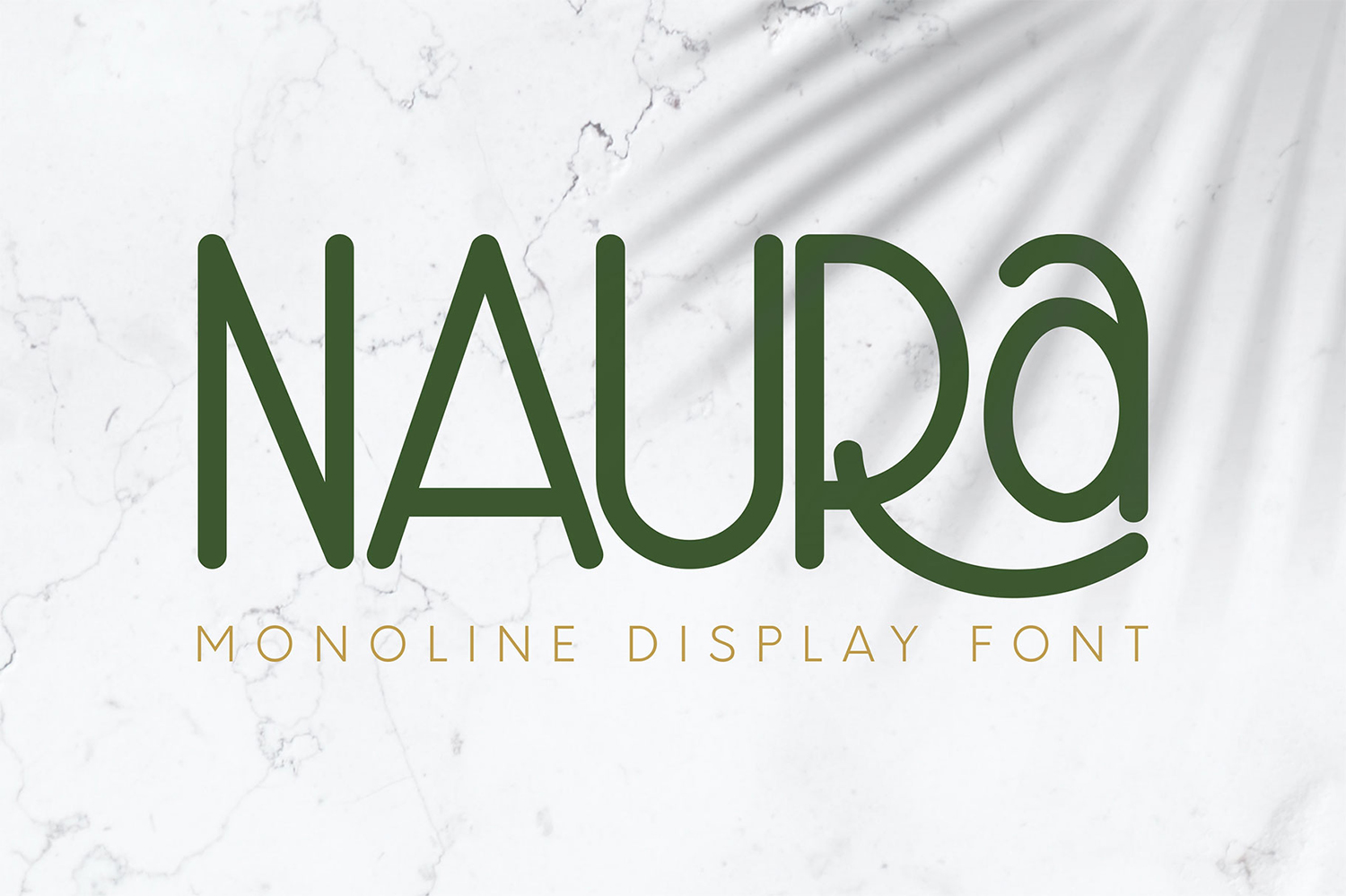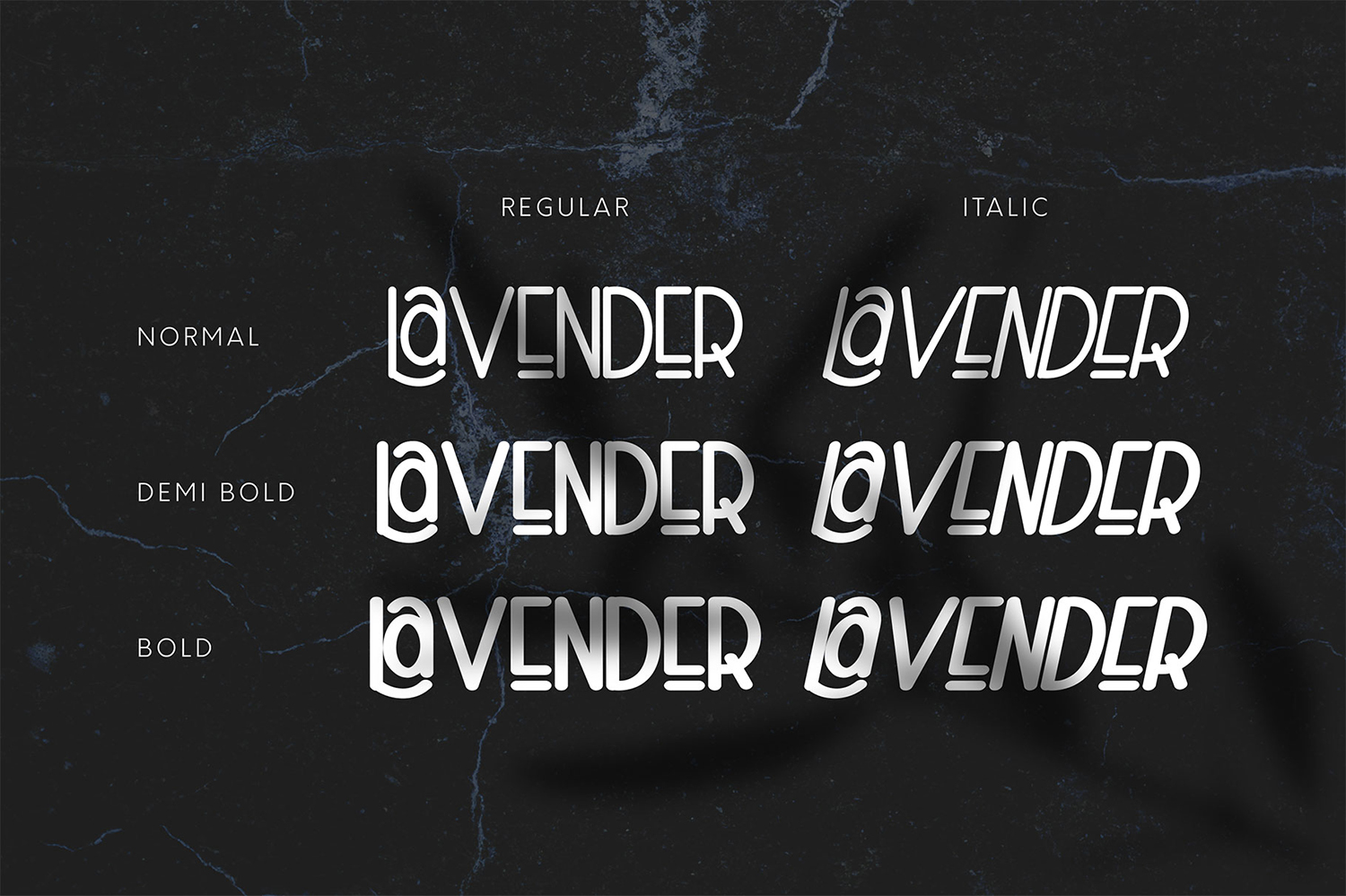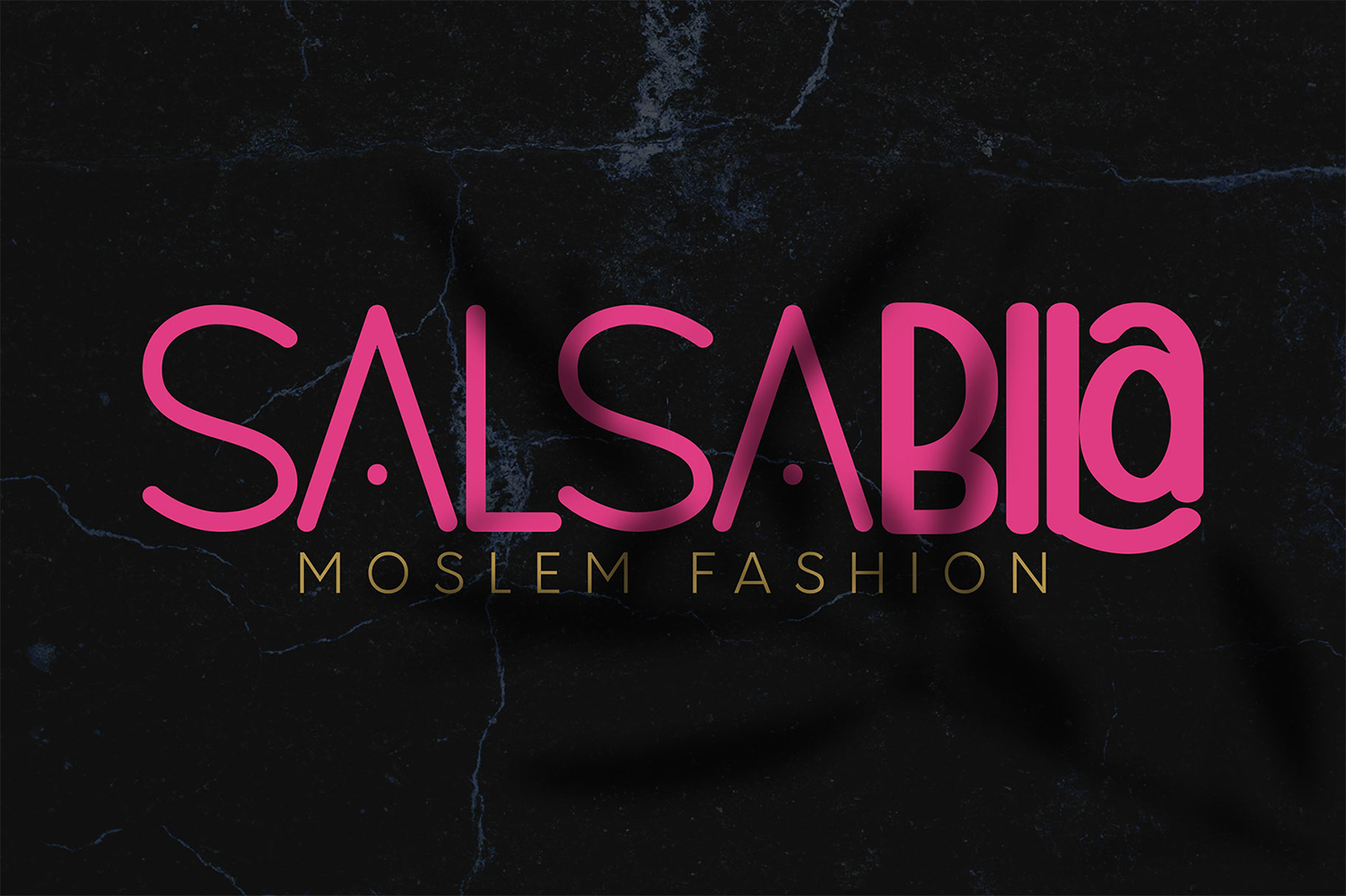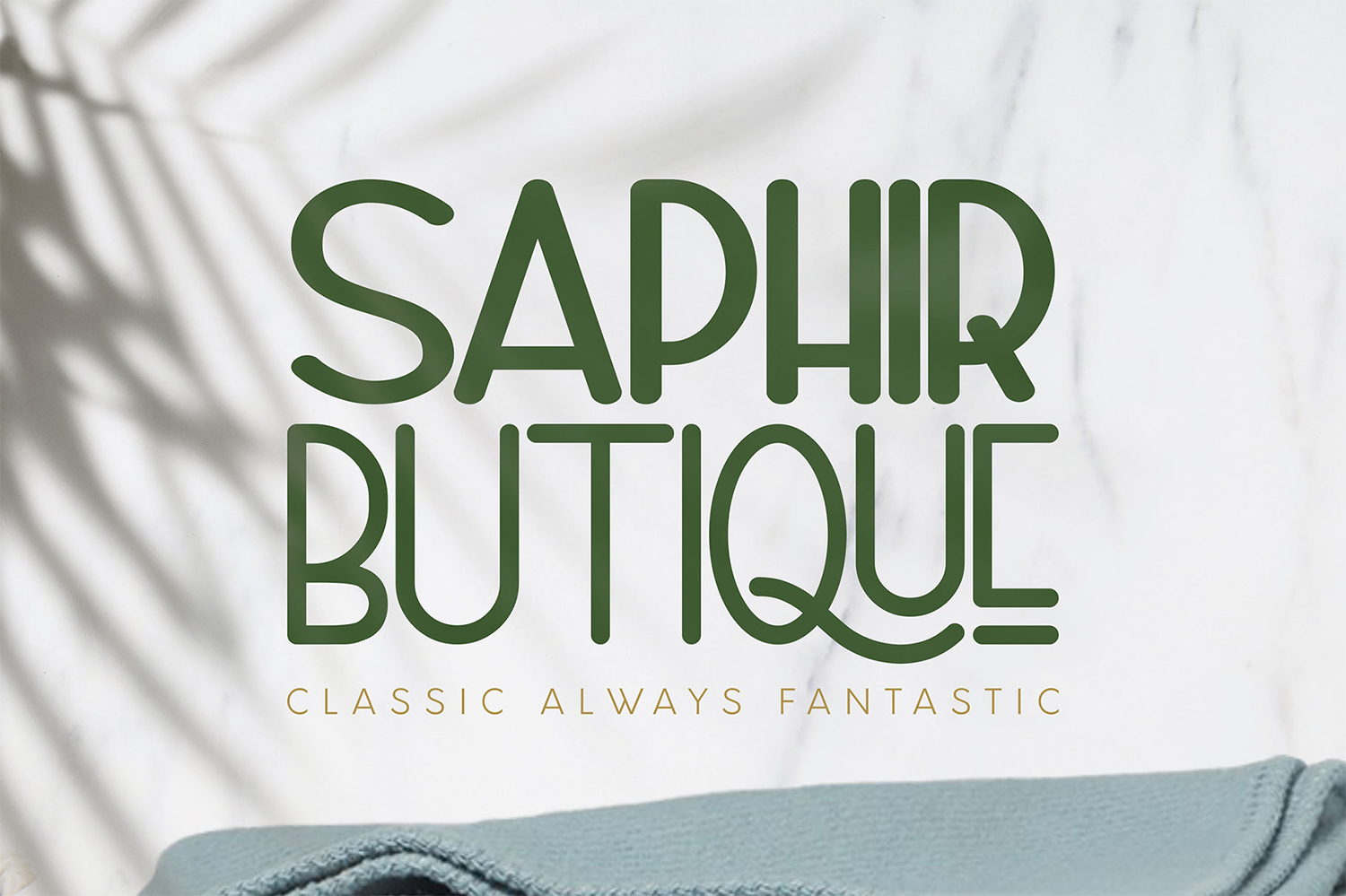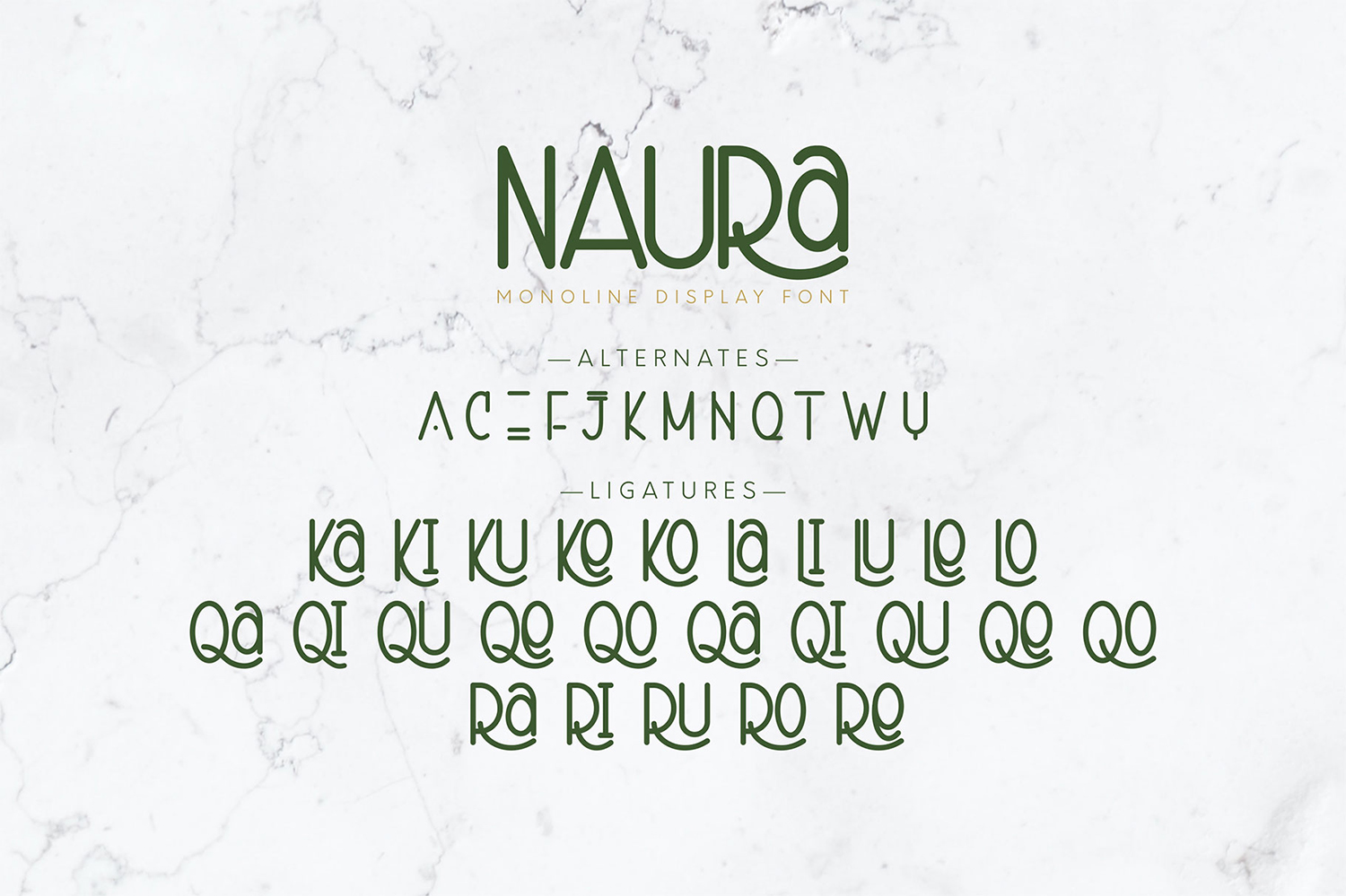
Naura Free Font
Naura Free Font is a display monoline font with 6 styles. Naura font is suitable for branding, logotype, apparel, T-shirt, Hoodie, product packaging, quotes, flyer, poster, advertising, etc. This free typeface was designed by the talented Ibnu Utomo. If you like it don’t forget to check out the full version.